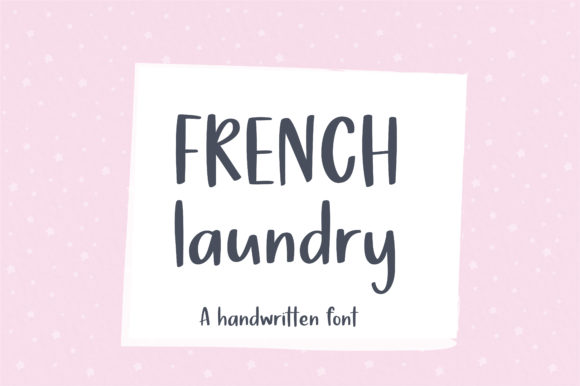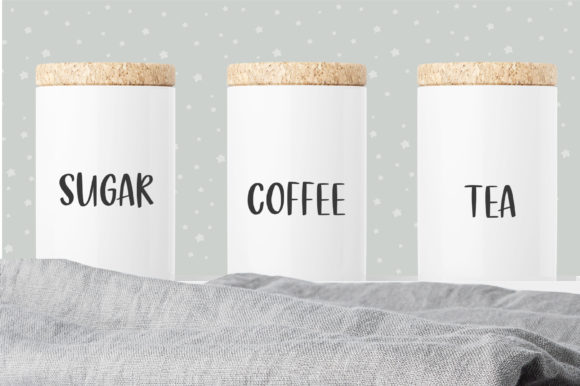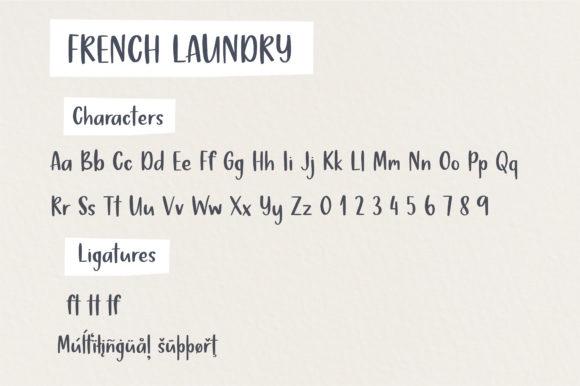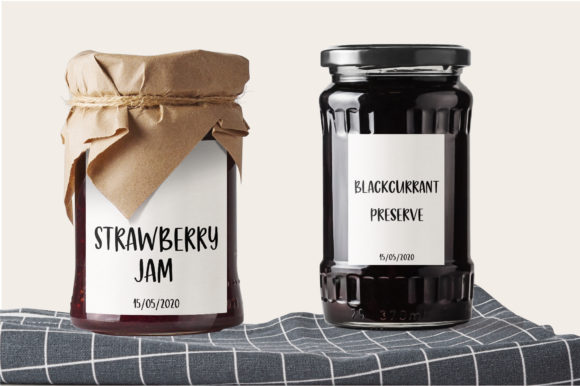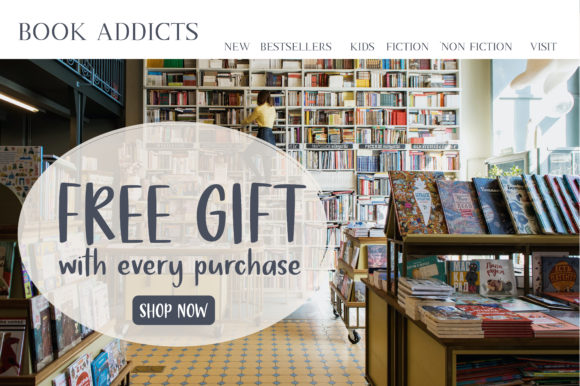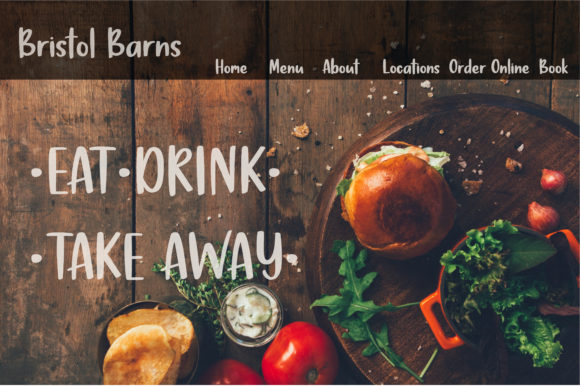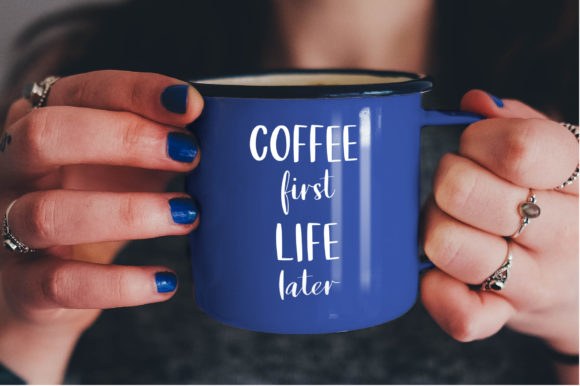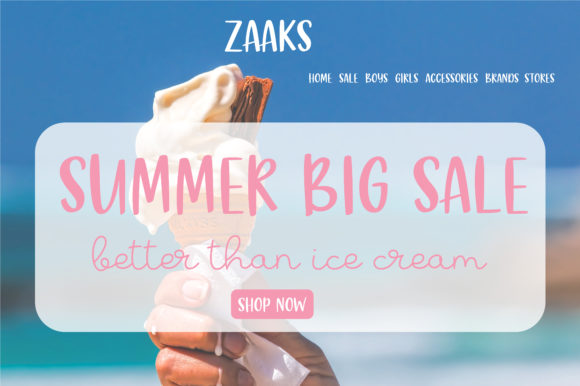
French Laundry Font
About French Laundry Font
French Laundry is a cute handwritten font. Get inspired by its authentic feel and use it to create gorgeous wedding invitations, beautiful stationary art, eye-catching social media posts, and cute greeting cards.